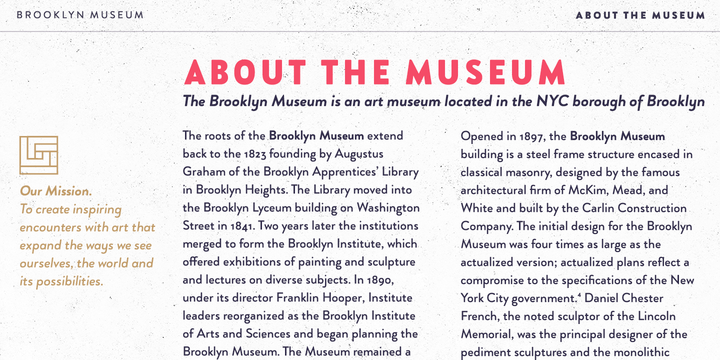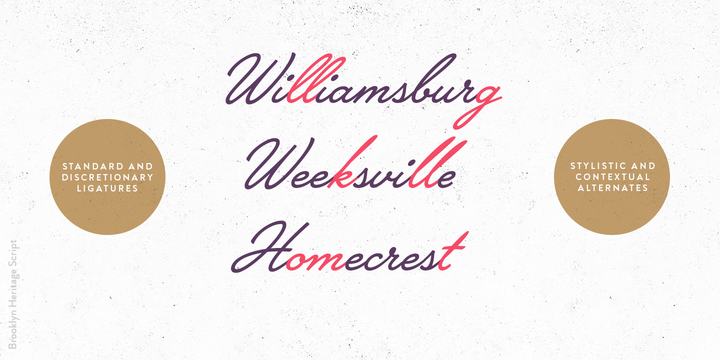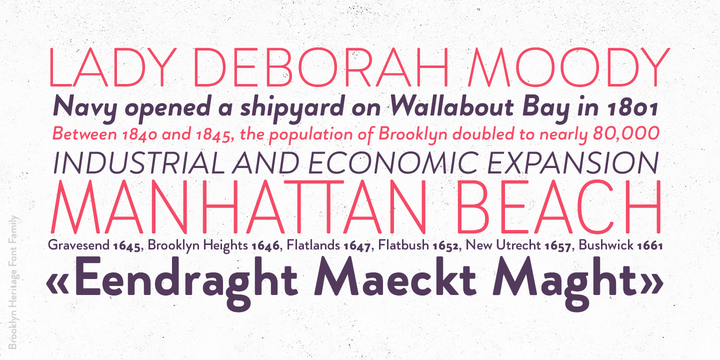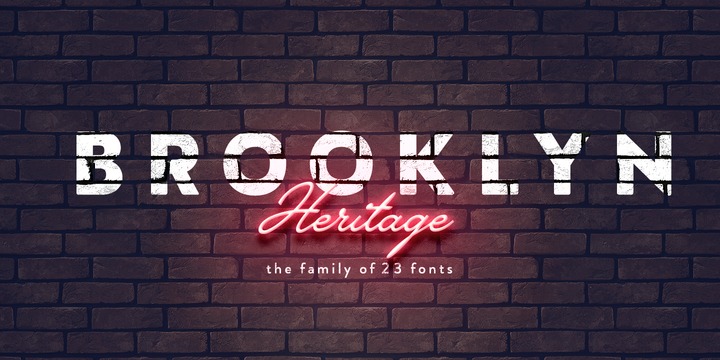
Brooklyn Heritage Family is a new intake on early 1930s classics. It is a modern font family with a vintage look that was designed with graphic designers in mind.
Influenced by geometric forms of Futura and Gill Sans, and inspired by brush lettering used in movie posters in the 30s ( see The Lodger, Tender Comrade, Primerose Path), it gives the old classics a new life.
Brooklyn Heritage Sans Serif comes in 5 weights and 2 widths plus italics.
It has many OpenType features embedded - oldstyle numerals, stylistic alternates, ligatures, case sensitive forms etc.
Script font is full of alternates both stylistic and contextual as well as ligatures.
More Simple yet versatile, Brooklyn Heritage Font Family can be used in all sorts of design projects from branding to website design, from packaging to ebooks layout.
Thanks to Grotesque fonts manual hinting, their appearance on the screens is flawless.
The family supports more than 70 European languages.